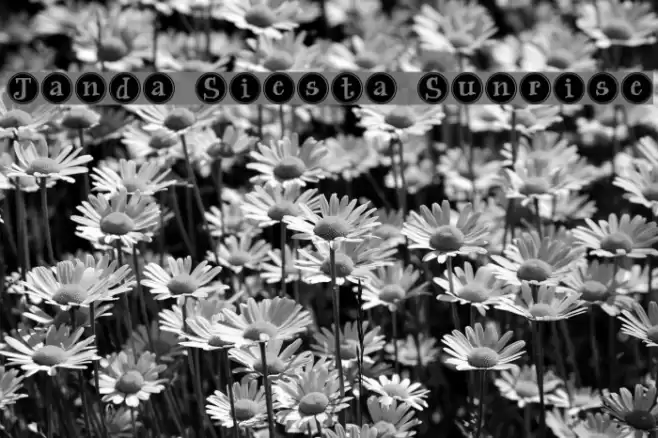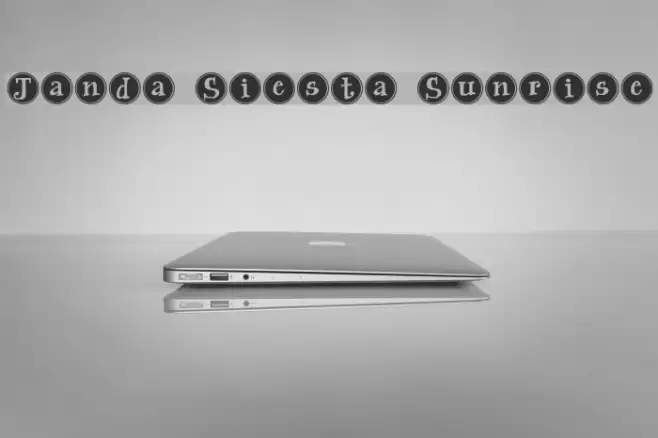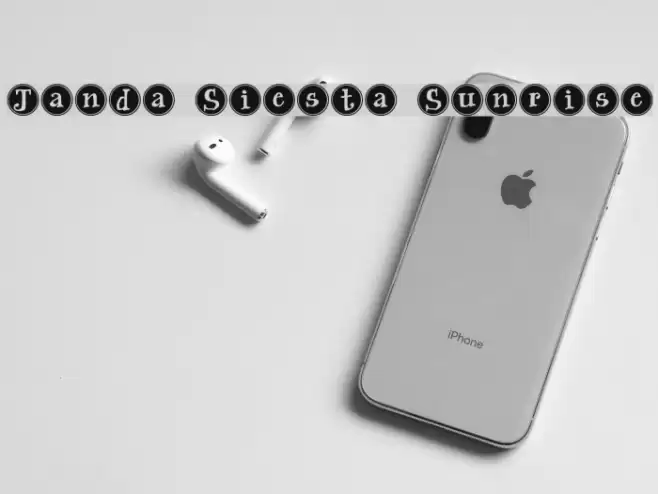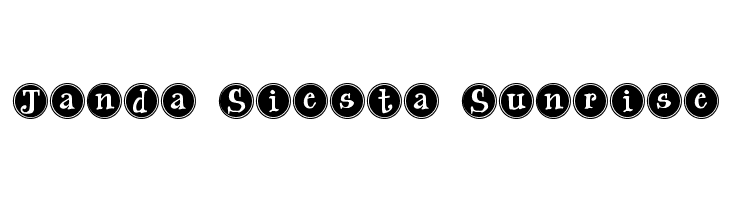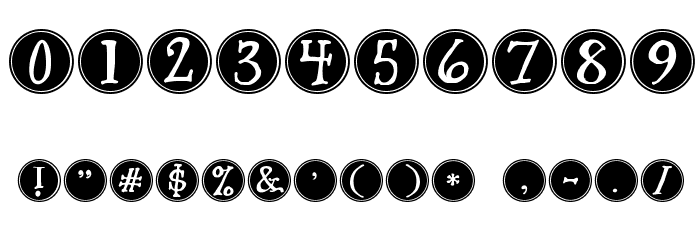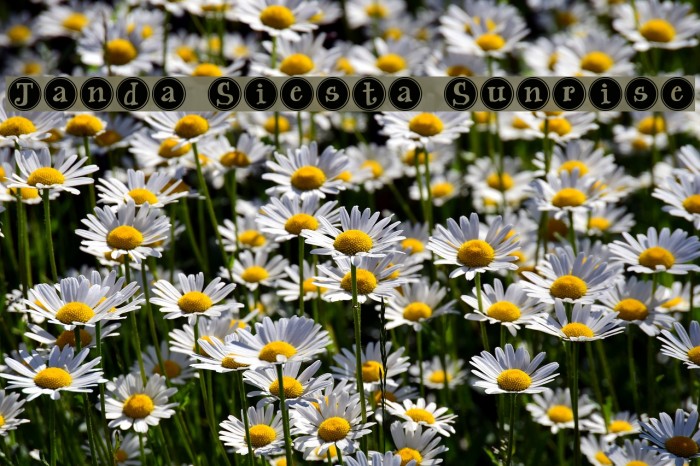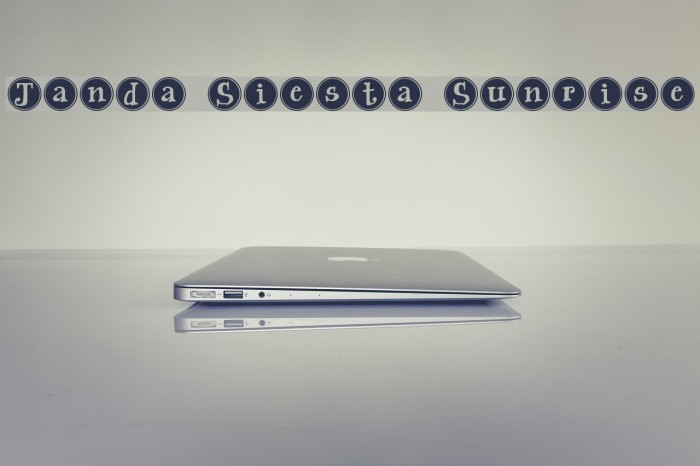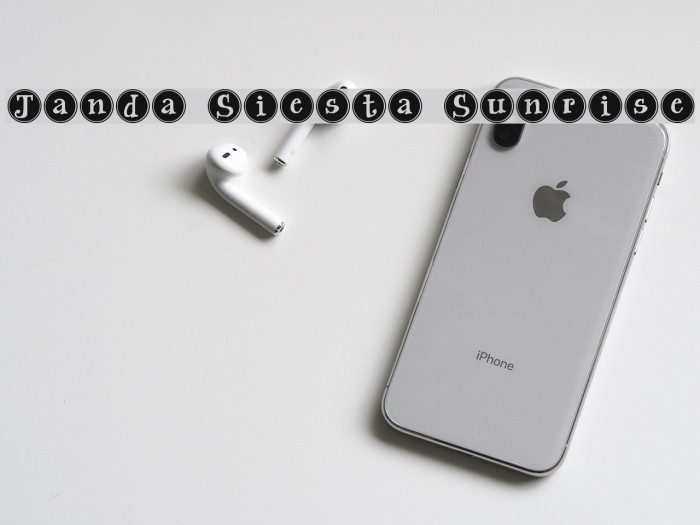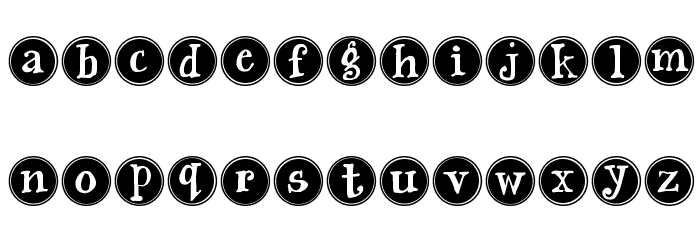
Janda Siesta Sunrise Font
Janda Siesta Sunrise Description
This font features a playful and decorative style, with each character enclosed in a circular border. The letters have a whimsical, almost hand-drawn quality, with varying stroke thicknesses that add to its charm. The uppercase and lowercase letters maintain a consistent style, while the numbers and special characters are designed to match the overall aesthetic. The font's unique presentation makes it stand out, offering a fun and engaging visual experience. The circular enclosures give it a button-like appearance, making it ideal for creative and informal projects.
A playful, decorative font with characters enclosed in circular borders from Decorative fonts.
- Proposed Projects: Ideal for children's books, playful branding, party invitations, and creative posters.
- Use Case: Logos, Headlines, Creative projects